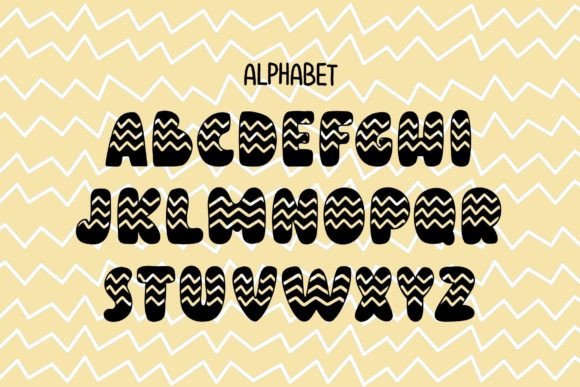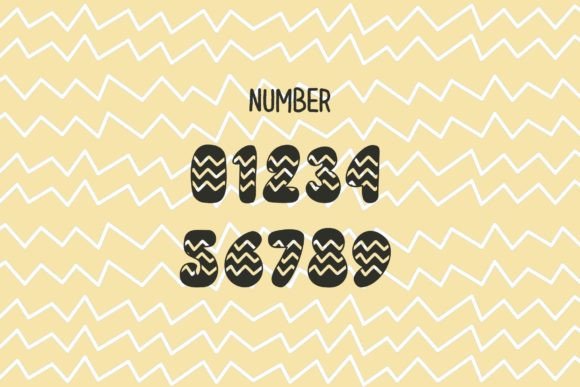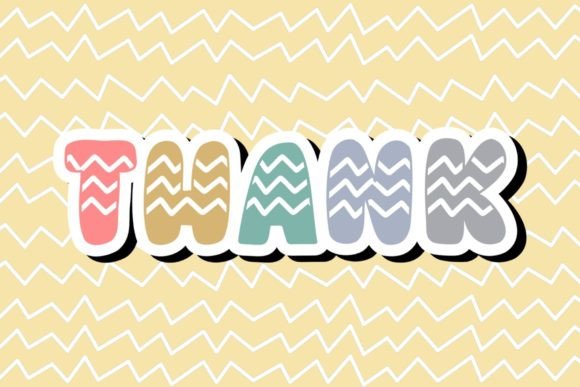
Introducing Hady Font: The Perfect Decorative Font for Your Creative Projects
In the world of design, fonts play a crucial role in conveying messages, evoking emotions, and creating visual identities. For designers, crafters, and DIY enthusiasts, finding the right font can make all the difference in bringing their creative projects to life. If you’re on the hunt for a decorative font that’s both stylish and versatile, look no further than Hady Font. In this article, we’ll explore the features, benefits, and uses of Hady Font, and why it’s the perfect fit for your logos, branding, social media, crafty DIY projects, and more.
What is Hady Font?
Hady Font is a decorative font designed to add a touch of elegance and whimsy to your creative projects. With its unique and stylish lettering, Hady Font is perfect for those who want to make a statement and stand out from the crowd. Whether you’re a designer, crafter, or DIY enthusiast, Hady Font is a versatile and easy-to-use font that’s sure to inspire your next project.
Key Features of Hady Font
- Decorative and Stylish: Hady Font features a unique and stylish lettering that’s perfect for making a statement.
- Versatile: Hady Font can be used for a wide range of creative projects, from logos and branding to social media and crafty DIY projects.
- Easily Readable: Despite its decorative nature, Hady Font is easily readable, making it perfect for use in a variety of contexts.
- Scalable: Hady Font is highly scalable, ensuring that it looks great in any size or resolution.
Uses of Hady Font
So, what can you use Hady Font for? The possibilities are endless! Here are just a few ideas to get you started:
- Logos and Branding: Use Hady Font to create a unique and memorable logo for your business or brand.
- Social Media: Add a touch of personality to your social media posts and profiles with Hady Font.
- Crafty DIY Projects: Use Hady Font to add a decorative touch to your crafty DIY projects, such as handmade cards, invitations, and signs.
- Graphic Design: Hady Font is perfect for use in graphic design projects, such as brochures, flyers, and posters.
- Web Design: Use Hady Font to add a touch of elegance and sophistication to your website or blog.
Benefits of Using Hady Font
So, why choose Hady Font for your creative projects? Here are just a few benefits of using this versatile and stylish font:
- Unique and Memorable: Hady Font is a unique and memorable font that’s sure to make your creative projects stand out.
- Easily Customizable: Hady Font is easily customizable, allowing you to adjust the font to suit your needs.
- Time-Saving: With Hady Font, you can save time and effort by using a pre-designed font that’s ready to use.
Tips for Using Hady Font
To get the most out of Hady Font, here are a few tips to keep in mind:
- Experiment with Different Sizes: Hady Font looks great in a variety of sizes, so don’t be afraid to experiment and find the perfect size for your project.
- Pair with Other Fonts: Hady Font pairs well with other fonts, so try combining it with different fonts to create a unique and interesting look.
- Use in Combination with Images: Hady Font looks great in combination with images, so try using it to add a touch of elegance and sophistication to your visual designs.
| Font Name | Hady Font |
| Author | DREAMs Soul G. |
In conclusion, Hady Font is a decorative font that’s perfect for designers, crafters, and DIY enthusiasts who want to add a touch of elegance and whimsy to their creative projects. With its unique and stylish lettering, Hady Font is versatile, easily readable, and scalable, making it perfect for use in a wide range of contexts. Whether you’re creating logos, branding, social media posts, or crafty DIY projects, Hady Font is a great choice. So why wait? Download Hady Font today and start creating your next masterpiece!